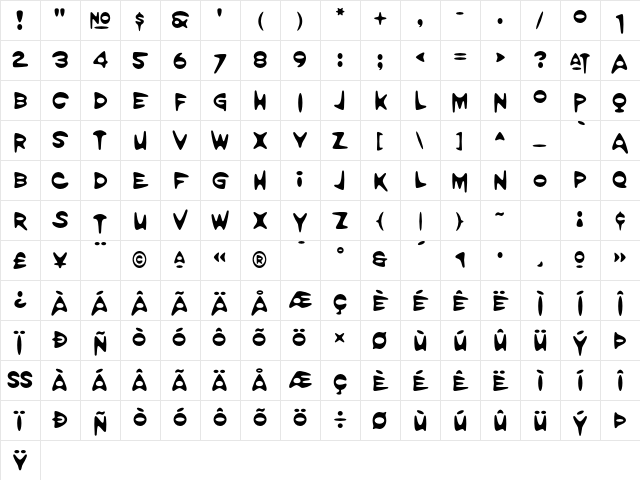
Amorpheus Regular Free Font
Amorpheus Regular
Foundry: n Hughes . A Device font
Complete Amorpheus Regular glyph index. Displaying only characters natively supported by Amorpheus Regular font.
Design Context for Amorpheus
Amorpheus is a composed and adaptable typeface that performs quietly and consistently across a wide range of design contexts.